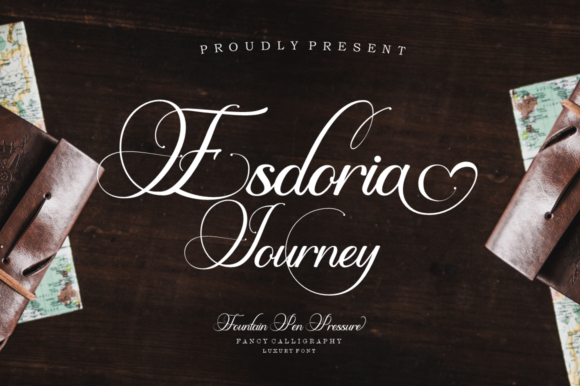
Introducing Esdoria Journey Font: Elevate Your Creations with a Whimsical Script Font
In the world of typography, fonts play a crucial role in conveying the tone and personality of a brand or design. When it comes to creating visually appealing and engaging content, selecting the right font is essential. If you’re looking for a font that can add a touch of whimsy and relaxation to your designs, look no further than Esdoria Journey Font. In this article, we’ll explore the features and benefits of Esdoria Journey, and why it’s an excellent addition to your font library.
What is Esdoria Journey Font?
Esdoria Journey is a beautiful, whimsical script font with a relaxed theme. Its lovely style makes it perfect for a wide range of design projects, from creative branding and advertising to elegant stationery and digital media. The font’s unique charm and character make it an excellent choice for designers looking to add a personal touch to their work.
Key Features of Esdoria Journey Font
- Whimsical Script Style: Esdoria Journey boasts a playful, cursive script style that’s perfect for creating eye-catching designs.
- Relaxed Theme: The font’s relaxed theme makes it ideal for designs that require a friendly and approachable tone.
- PUA Encoded: Esdoria Journey is PUA (Private Use Area) encoded, which means you can easily access all the glyphs and swashes, giving you maximum flexibility and creative control.
- Elegant Swashes: The font features beautiful swashes that can be used to add a touch of elegance to your designs.
- Multilingual Support: Esdoria Journey supports multiple languages, making it a great choice for global brands and designers.
Why Choose Esdoria Journey Font?
So, why should you choose Esdoria Journey Font for your design projects? Here are a few compelling reasons:
- Versatility: Esdoria Journey is a versatile font that can be used for a wide range of design projects, from logos and branding to packaging and digital media.
- Unique Style: The font’s unique, whimsical style sets it apart from more traditional fonts, making it perfect for designers looking to create distinctive and memorable designs.
- Ease of Use: With its PUA encoding, Esdoria Journey is easy to use, even for designers who are new to script fonts.
- High-Quality Design: The font is designed to high standards, ensuring that it looks great in any design.
How to Use Esdoria Journey Font
Using Esdoria Journey Font is easy. Here are a few tips to get you started:
- Pair it with Other Fonts: Esdoria Journey pairs well with other fonts, making it easy to create visually appealing combinations.
- Experiment with Swashes: The font’s swashes can add a touch of elegance to your designs. Experiment with different swash styles to find the one that works best for your project.
- Use it for Headings and Titles: Esdoria Journey is perfect for headings and titles, where its unique style can really shine.
- Try it in Digital Media: The font works well in digital media, including social media graphics, videos, and websites.
In conclusion, Esdoria Journey Font is a beautiful, whimsical script font that’s perfect for designers looking to add a touch of relaxation and elegance to their designs. With its PUA encoding, elegant swashes, and multilingual support, it’s an excellent choice for a wide range of design projects. Whether you’re creating branding, advertising, or digital media, Esdoria Journey is sure to elevate your creations and help you stand out from the crowd.
- What is Esdoria Journey Font? Esdoria Journey Font is a whimsical script font with a relaxed theme, featuring a lovely style.
- Is Esdoria Journey Font PUA encoded? Yes, Esdoria Journey Font is PUA encoded, making it easy to access all the glyphs and swashes.
- What type of designs is Esdoria Journey Font best suited for? Esdoria Journey Font is perfect for designs that require a friendly and approachable tone, such as branding, advertising, and digital media.